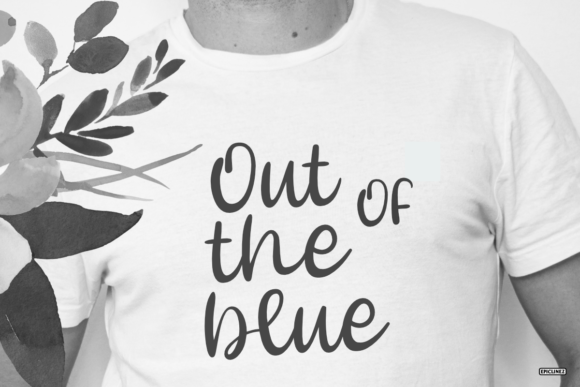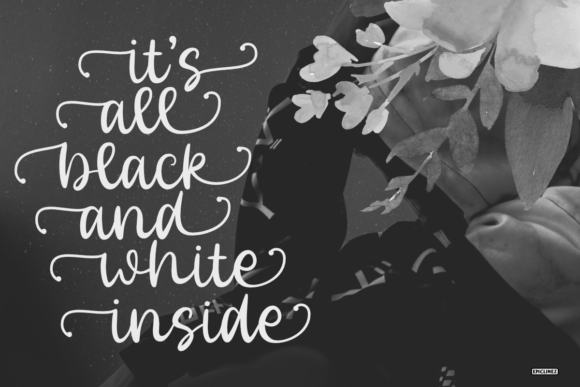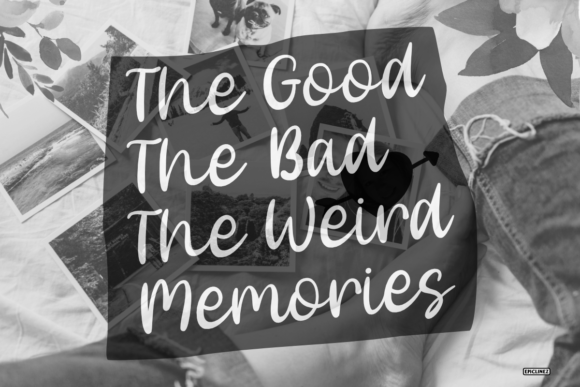
Introduction to Decorate Font
Decorate is a stylish and delicate handwritten font.
It has beautiful and well balanced characters and as a result, it matches a wide pool of designs Add it to your most creative ideas and notice how it makes them come alive.
Decorate Font offers exceptional quality and versatility, making it a valuable addition to your design toolkit. Whether you’re creating for personal projects or commercial use, Decorate Font delivers professional results.